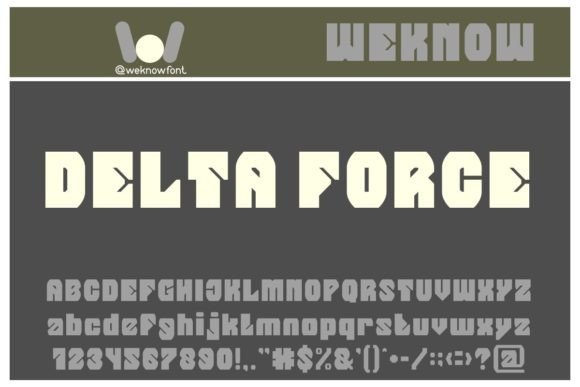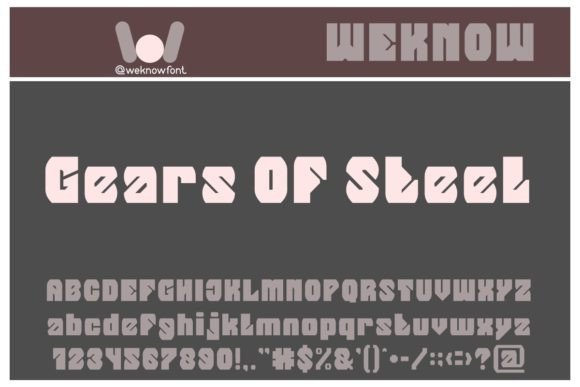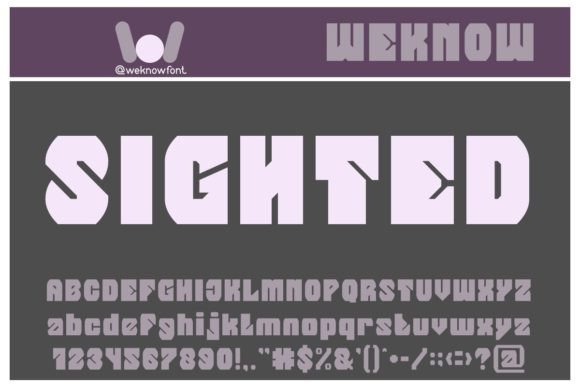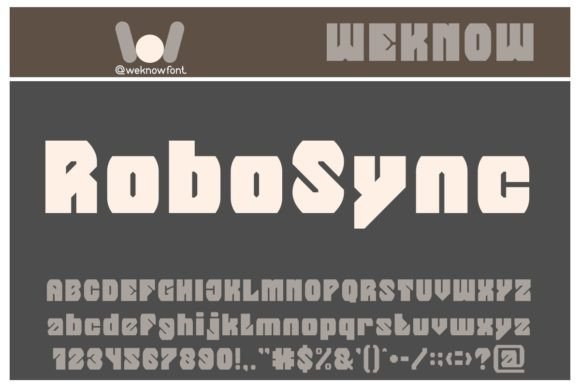
Unleash Your Creativity with Aftermath Font: A Techno-Sci-Fi Display Font
Are you a designer, craftsperson, or creative looking for a unique and versatile font to elevate your projects? Look no further than the Aftermath Font, a techno-sci-fi display font designed to make a statement. With its futuristic and edgy aesthetic, this font is perfect for a wide range of applications, from logos and logotypes to headlines, corporate identities, and more.
What is Aftermath Font?
Aftermath Font is a carefully crafted techno-sci-fi display font that exudes a sense of innovation and cutting-edge style. Its sleek and modern design makes it an ideal choice for designers and crafters seeking to add a touch of futurism to their work. Whether you’re creating a logo, branding materials, or marketing collateral, this font is sure to grab attention and leave a lasting impression.
Key Features of Aftermath Font
- Techno-Sci-Fi Aesthetic: Aftermath Font boasts a distinctive techno-sci-fi look that’s perfect for projects that require a futuristic feel.
- Versatile: This font is suitable for a wide range of applications, including logos, logotypes, headlines, corporate identities, brand identities, and more.
- Highly Legible: Despite its futuristic design, Aftermath Font remains highly legible, making it perfect for use in various contexts, from digital media to print materials.
Use Cases for Aftermath Font
The versatility of Aftermath Font makes it an excellent choice for numerous projects and industries. Here are some examples of how you can use this font:
- Logos and Logotypes: Create a memorable brand identity with a custom logo or logotype featuring Aftermath Font.
- Headlines and Titles: Add a touch of futurism to your headlines and titles with this eye-catching font.
- Corporate Identities: Establish a strong brand presence with Aftermath Font, perfect for corporate materials, such as business cards, brochures, and letterheads.
- Apparel Industry: Design trendy and stylish apparel, such as t-shirts, hoodies, and hats, with Aftermath Font.
- Posters and Flyers: Create striking posters and flyers that grab attention with this bold font.
- Music, Movies, and Games: Add a futuristic touch to your music, movie, or game branding with Aftermath Font.
- Magazines, Books, and Comics: Use Aftermath Font to create engaging and eye-catching titles, headings, and captions for your publications.
- Digital Media: Enhance your YouTube, Instagram, and website content with this modern font.
Why Choose Aftermath Font?
With so many fonts available, why choose Aftermath Font? Here are a few compelling reasons:
- Unique Design: Aftermath Font offers a distinctive and futuristic design that sets it apart from other fonts.
- High-Quality: This font is crafted with attention to detail, ensuring a high-quality and professional look.
In conclusion, Aftermath Font is an exceptional techno-sci-fi display font that’s perfect for designers, craftspersons, and creatives seeking to add a touch of futurism to their projects. Its versatility, legibility, and unique design make it an excellent choice for a wide range of applications. Whether you’re creating logos, headlines, or marketing materials, Aftermath Font is sure to elevate your work and leave a lasting impression.